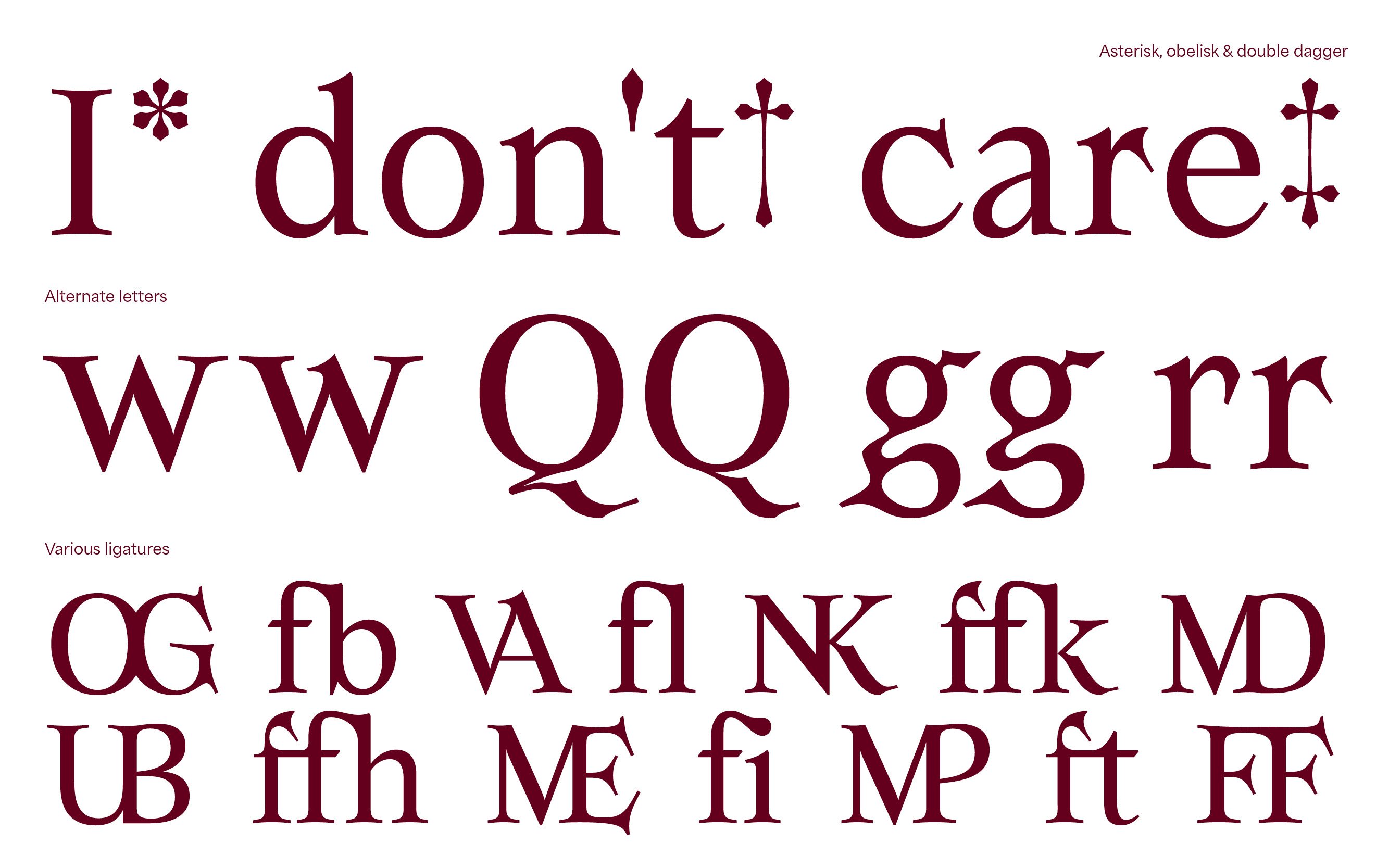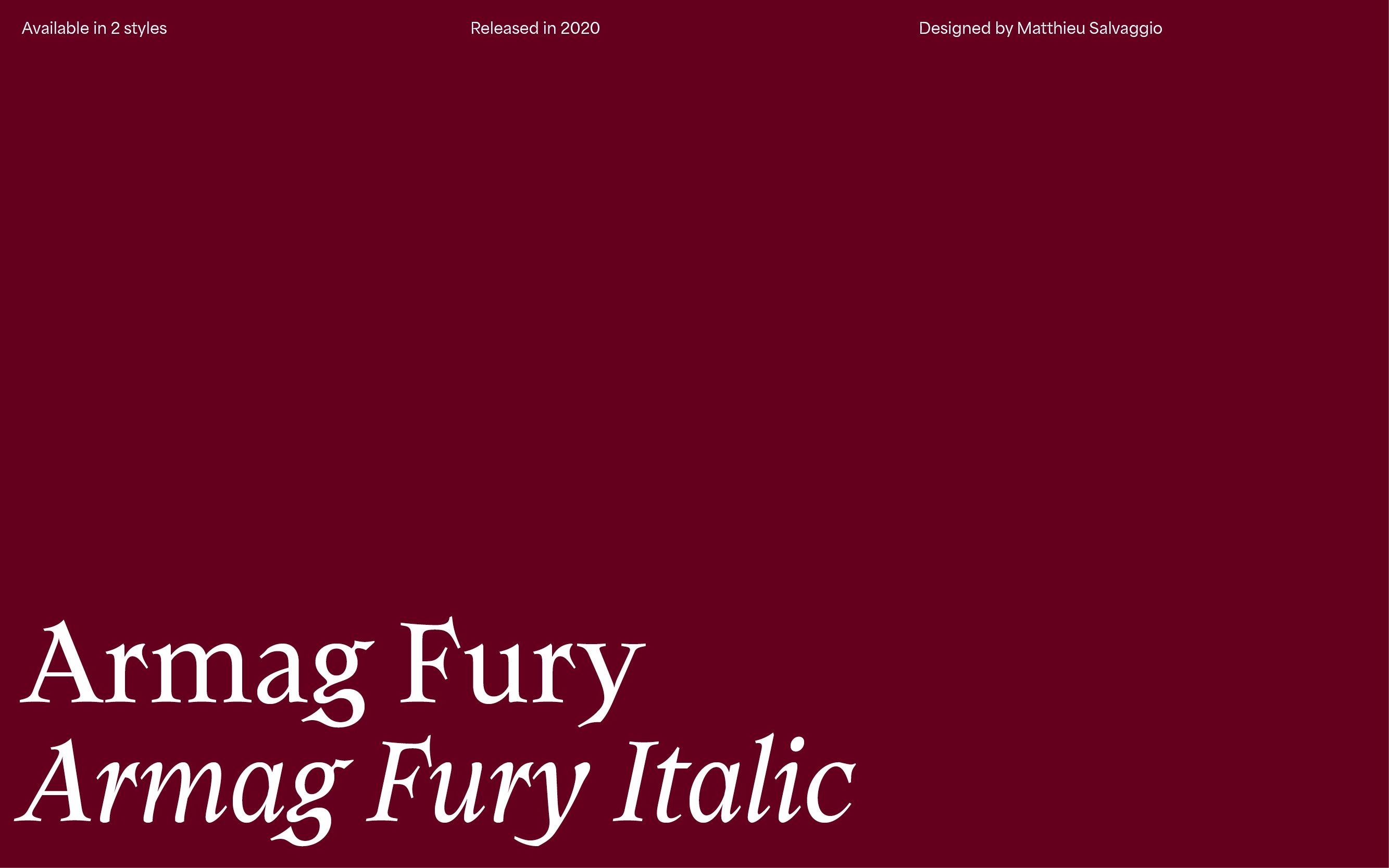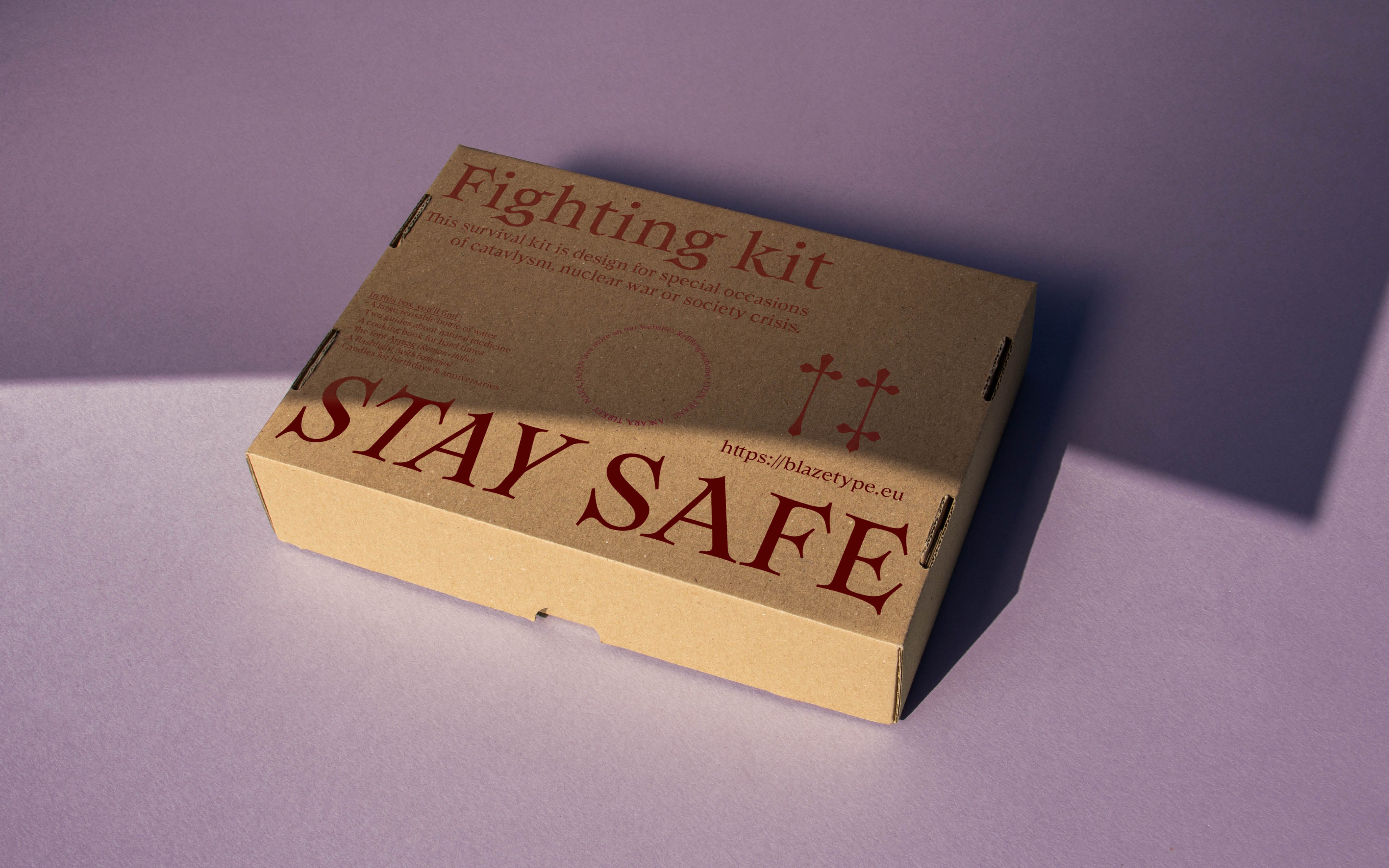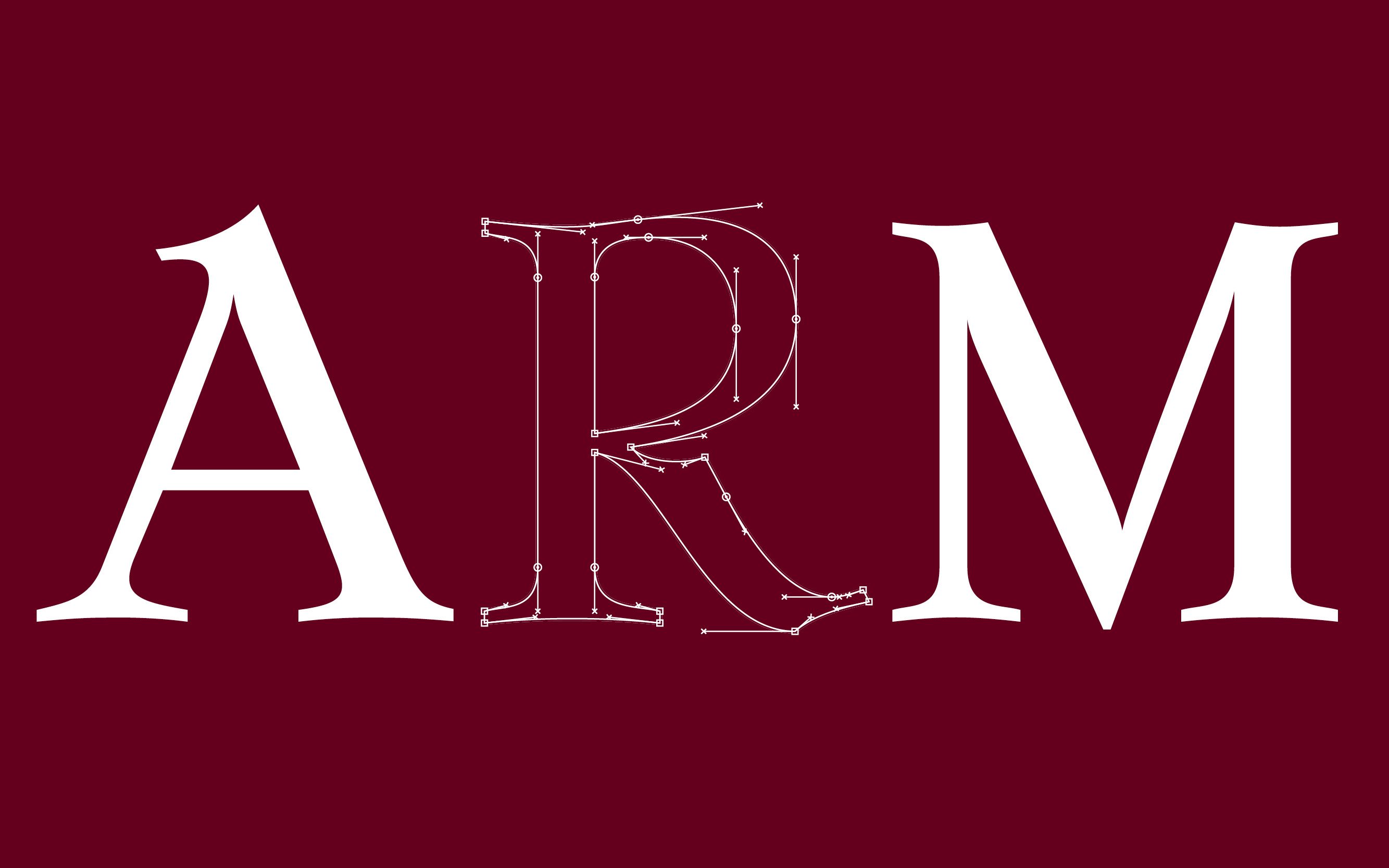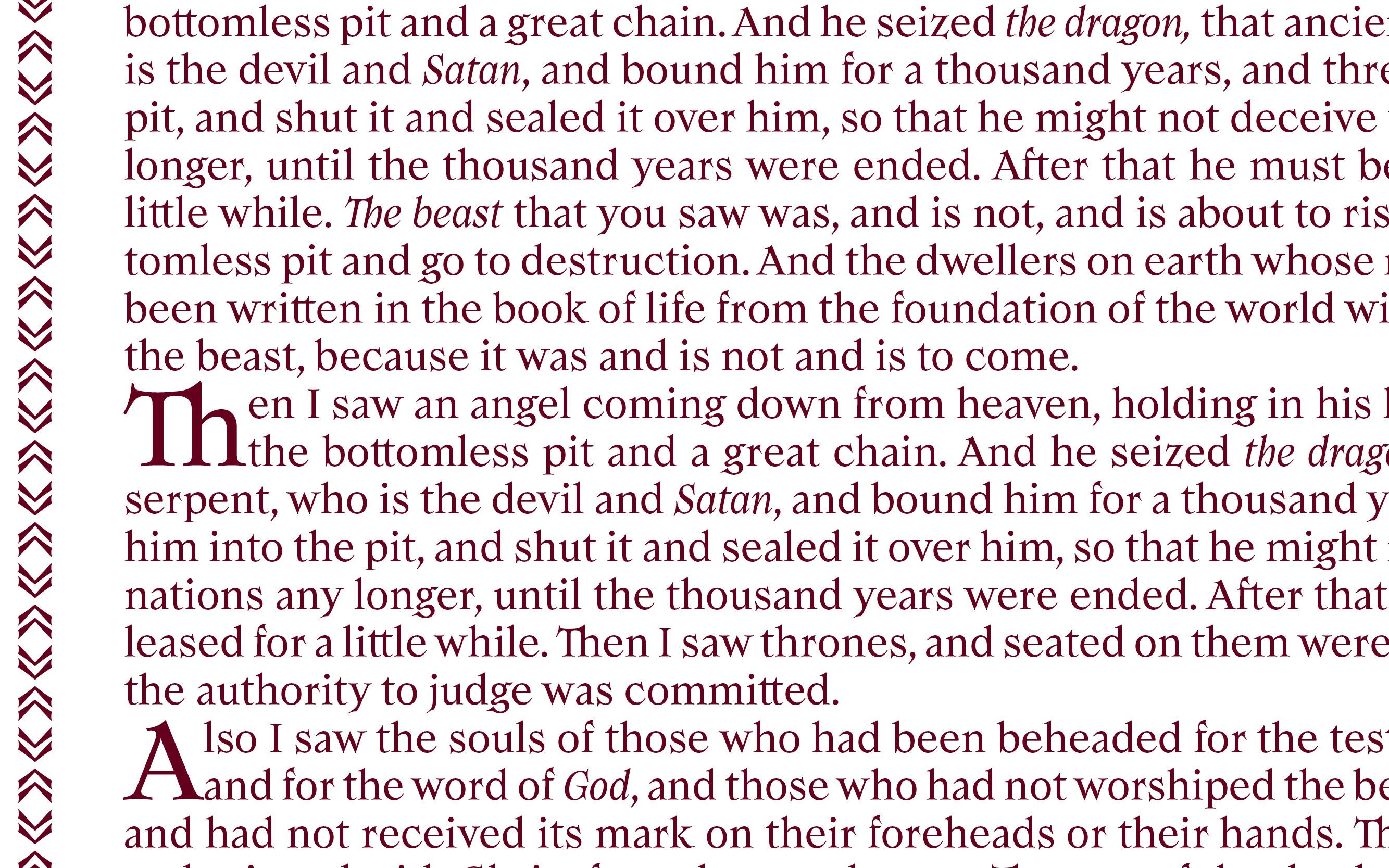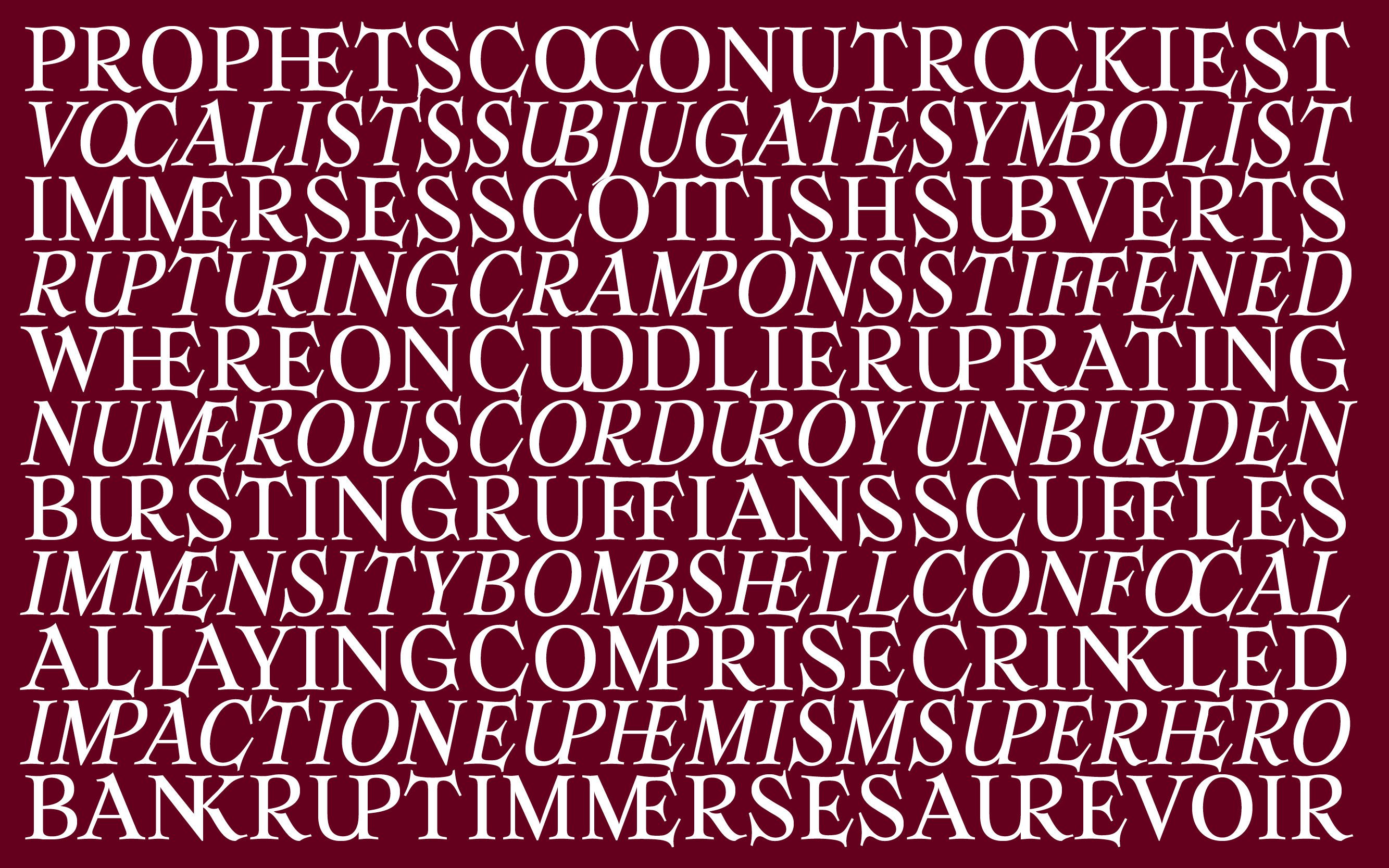
Armag
Inspired by early 20th century hand drawing, Armag is a family of two fonts (Fury & Fury Italic) with aggressive and evilish looking endings and, yet, generous organic shapes.
This 20th century serif font has numerous alternates and ligatures, making it a sharp tool allowing more experimentation in any kind of design project. The old fashioned print style give Armag an almost biblical appearance, represented by the evilness of its horned letterform. We are also working on expanding the Armag font-family with various weights, widths and, of course, alternates & ligatures.
Matthieu Salvaggio